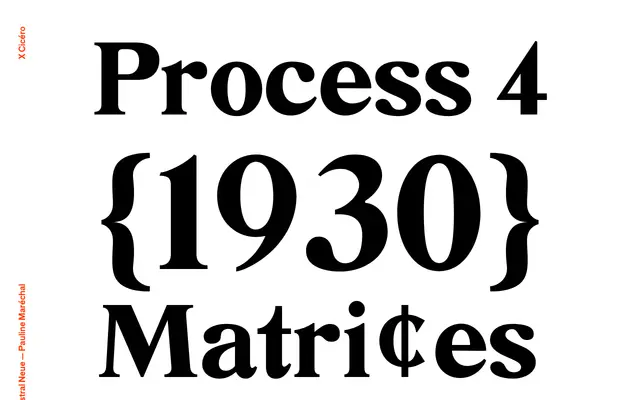
Thestral
An experimental display typeface from X Cicéro referencing 1930s photomechanical and colour-separation processes.
The page situates Thestral within a visual vocabulary of matrices, three-strip negatives and colour filters, evoking the technical language of phototypesetting and early colour reproduction. The 1930 date reference frames the design within a period of significant mechanical printing experimentation. Little further detail is publicly available, which is consistent with X Cicéro's position as a student or experimental foundry platform.
The fragmentary page content and visual language — matrices, colour filters, negative strips — suggest an experimental display typeface drawing on phototypesetting or analogue reproduction processes.